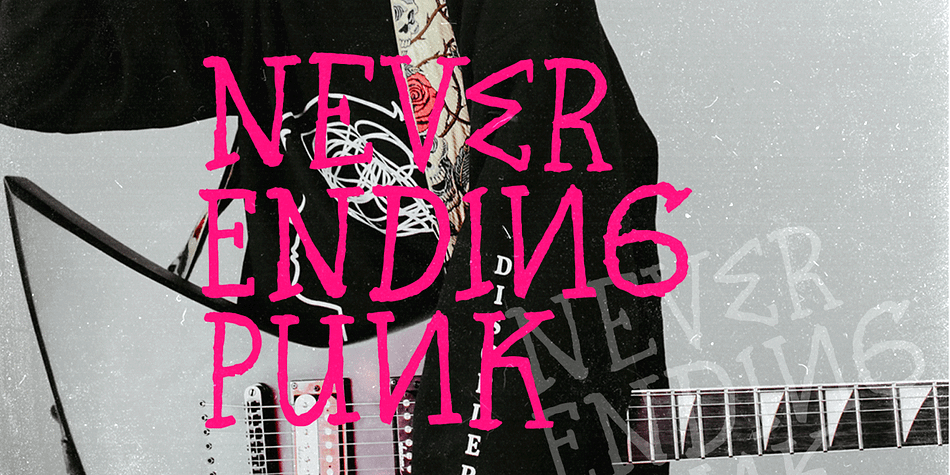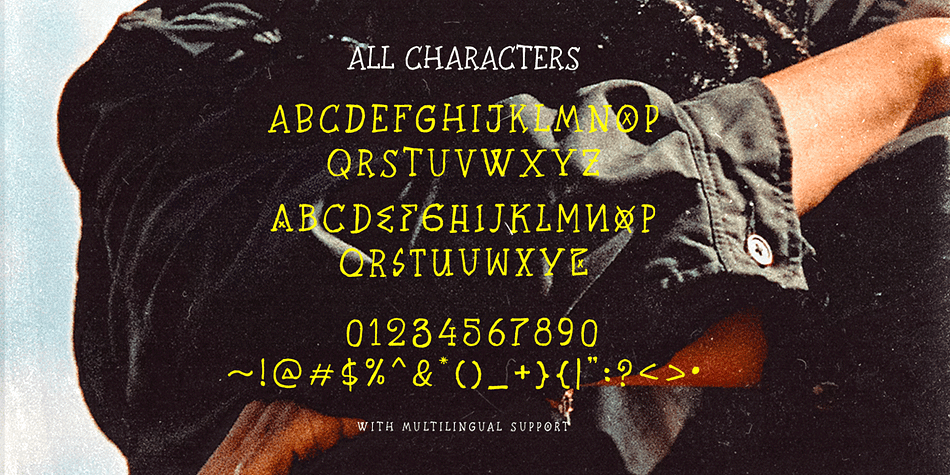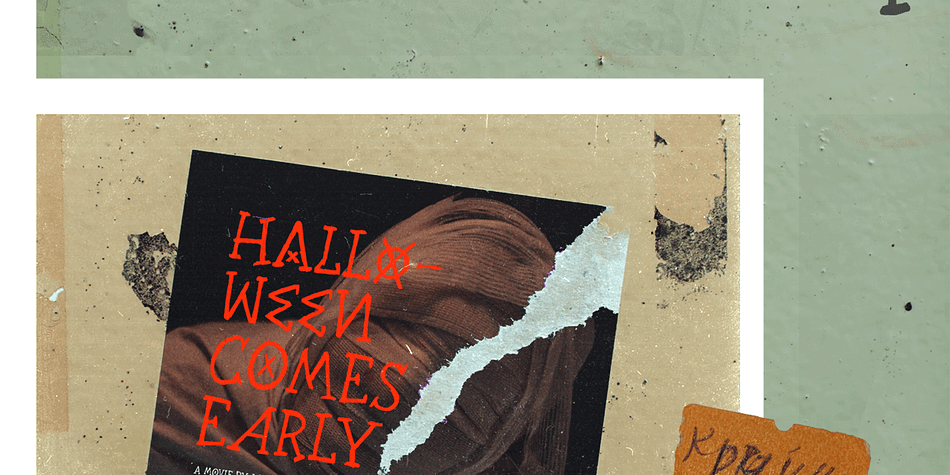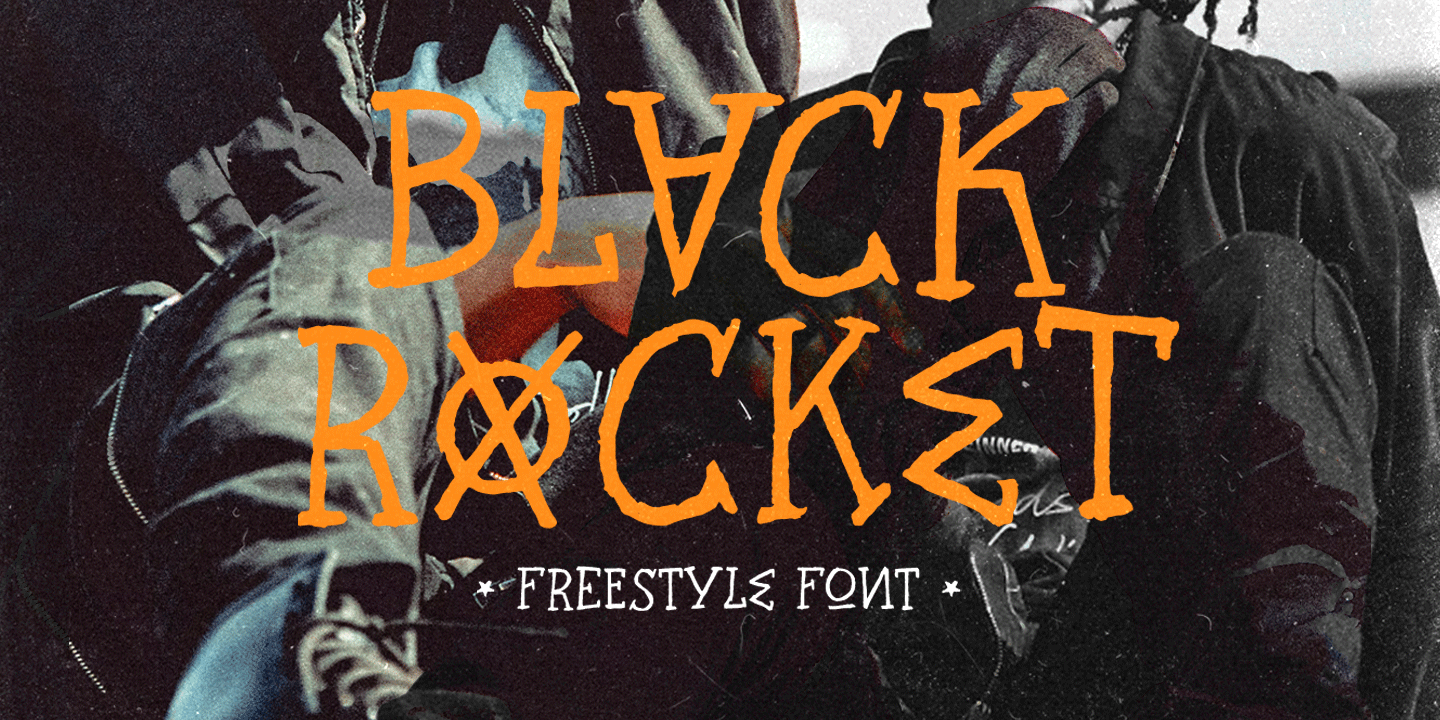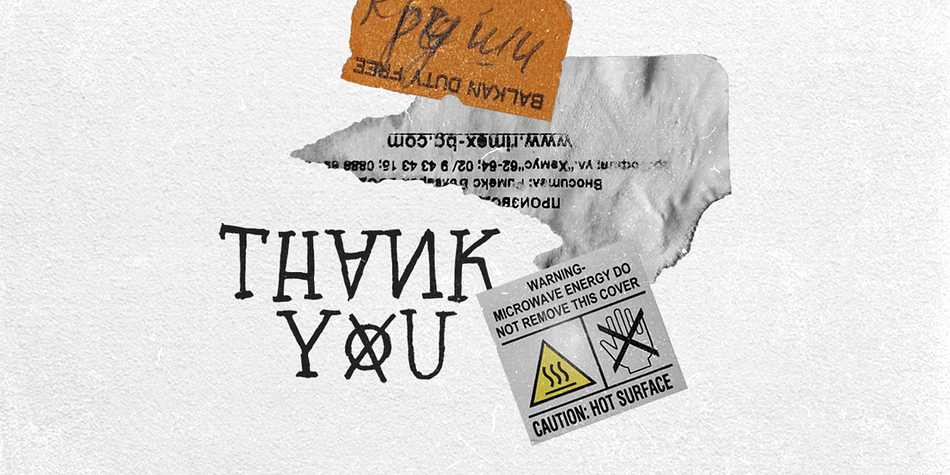
Black Rocket Freestyle
Designed by Hendry Juanda, Black Rocket Freestyle is a hand display and hand drawn font published by Letterhend Studio.
Black Rocket is a standout handwritten font with a touch of grunge and free look and feel.  If you want to pick bold and standout font for your design, this is the font that you’re looking for! This font is perfect for packaging, flyer design, event poster, event greeting,or any type of advertising purpose.
uppercase & lowercase
numbers and punctuation
multilingual